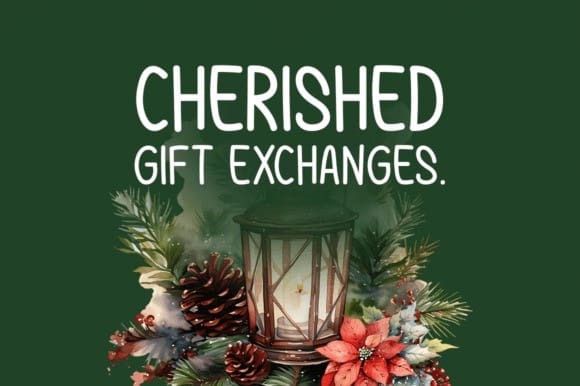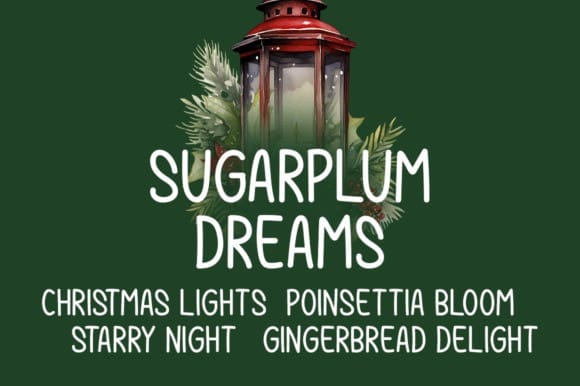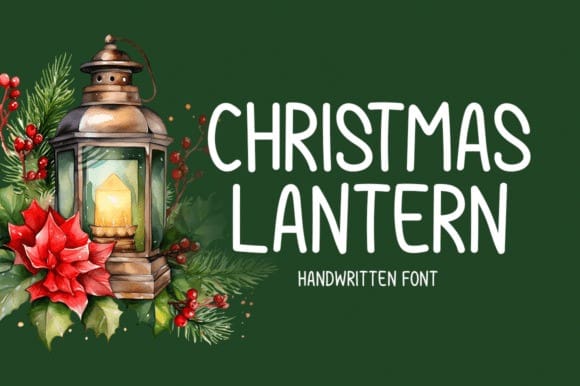
Christmas Lantern Font
Christmas Lantern Font is a straightforward handwritten font. Add it to your original ideas to see how it helps them stand out since it can be readily suited to a huge range of projects.